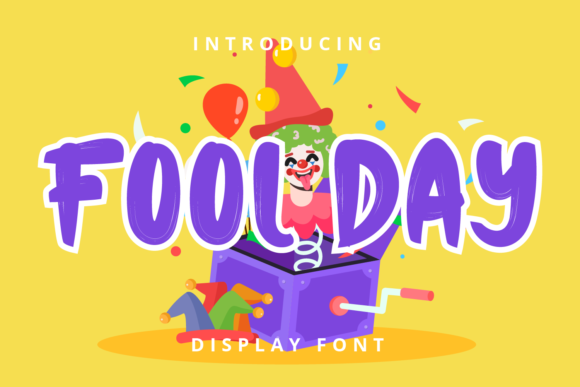
Who hasn’t had that moment where the perfect font suddenly pops into their head and inspires a whole design concept? For designers, those moments of creative clarity are what drive us to create something truly special. And for me, it was the discovery of the Fool Day Font that sparked a whole new world of possibilities.
Fool Day Font is a fun and relaxed brushed display font that’s perfect for adding a touch of youth and joy to any design. Whether you’re creating party invitations, promotional materials for a swimming gathering, or just need a font that captures the carefree spirit of summer, Fool Day Font is a valuable addition to your design toolkit.
With its playful and laid-back vibe, Fool Day Font is a must-have for designers looking to add a little extra whimsy to their designs. Whether you’re a seasoned pro or just starting out, this font is sure to bring a smile to your face and inspire your next creative project.
Fool Day Font Key Features
- Unique Characteristics: This font features a playful, hand-drawn style with intricate details and flourishes, perfect for adding a touch of whimsy to designs.
Fool Day Font Review
I recently had the chance to dive into the Fool Day Font, and I must say it’s a unique addition to any designer’s toolkit. ✨ The font’s quirky charm and playful vibe make it perfect for projects that need a lighthearted touch. Whether it’s a promotional campaign or a social media post, Fool Day Font can bring a much-needed smile to your audience’s face.
One of the standout features of this font is its versatility. ✨ It’s available in a wide range of weights and styles, making it easy to use in a variety of contexts. The font’s flexibility also means you can experiment with different combinations to create a look that’s all your own.
While Fool Day Font has a lot to offer, there are a few limitations to keep in mind. ⚠️ The font may not be suitable for projects that require a more serious or professional tone. Additionally, some of the more ornate styles can be quite busy, which may detract from the overall readability of your text.
In conclusion, Fool Day Font is a great choice for designers looking to add a touch of whimsy to their projects. While it may not be suitable for every occasion, its unique charm and versatility make it a valuable addition to any toolkit. Just be sure to use it judiciously and in the right context.
- Unique, playful design
- Available in a wide range of weights and styles
- Perfect for lighthearted or promotional projects
- May not be suitable for serious or professional projects
- Some styles can be quite busy, affecting readability
To get the most out of the Fool Day Font, use it sparingly to add emphasis or create visual interest. Pair it with bold or sans-serif fonts to create a striking contrast.
The Fool Day Font is perfect for:
- Creating playful invitations or social media graphics
- Adding a whimsical touch to product labels or packaging
- Designing children’s books or educational materials